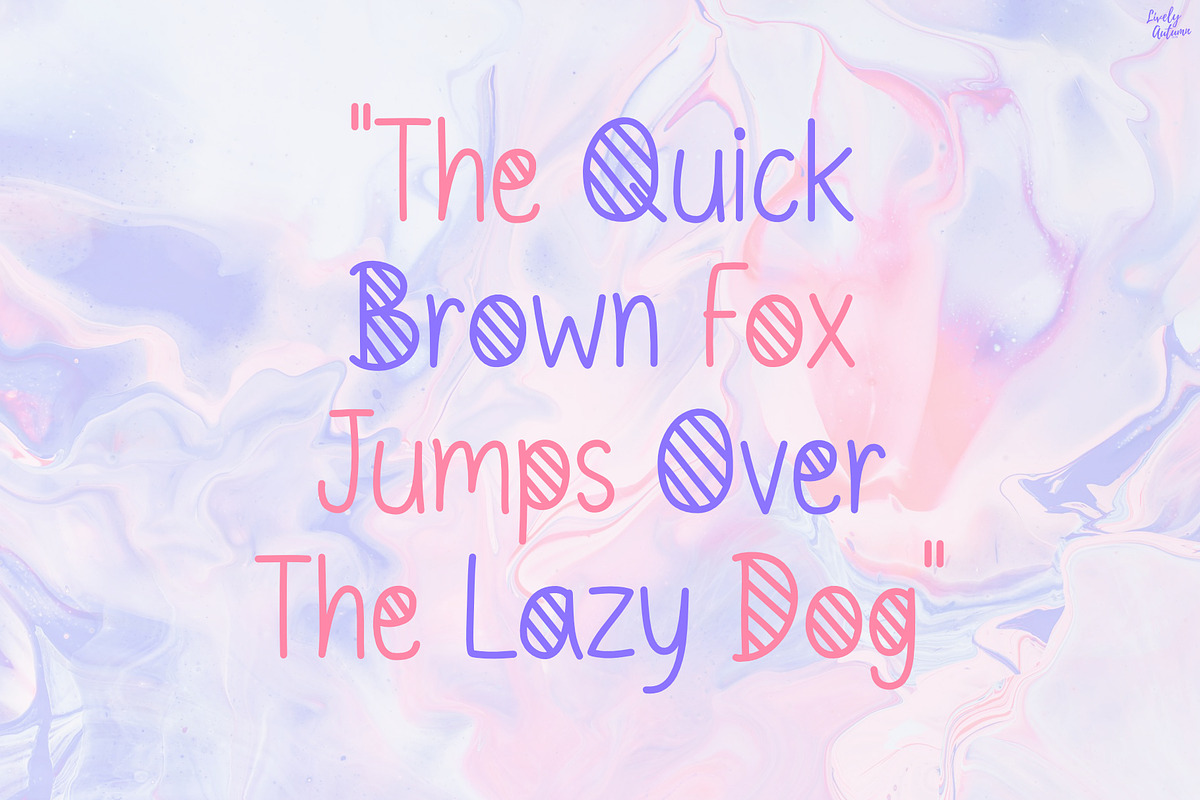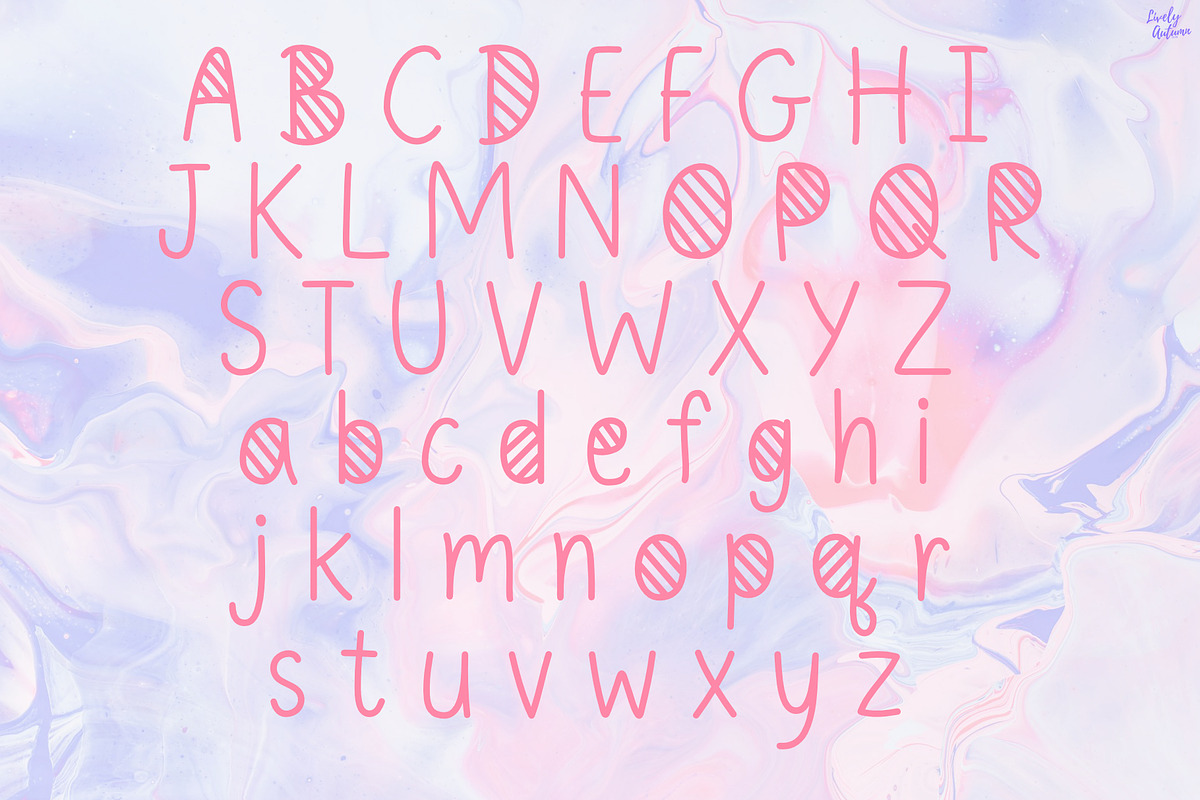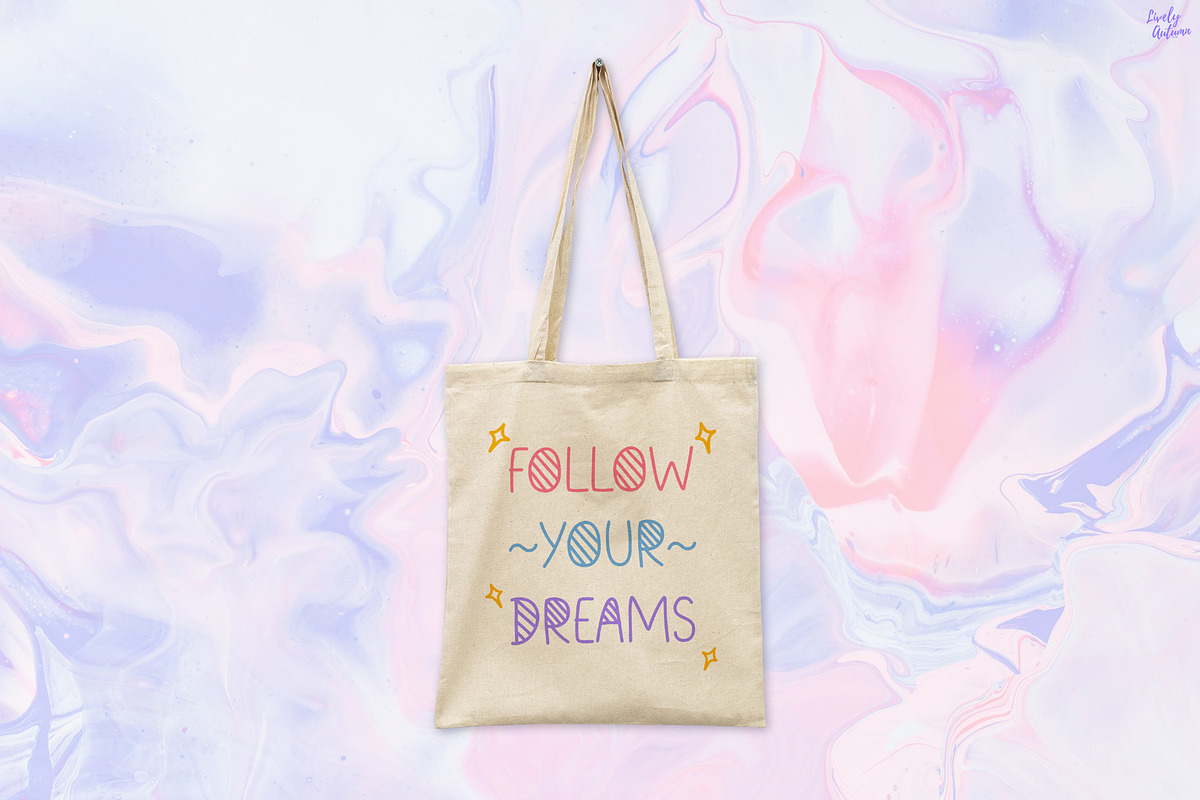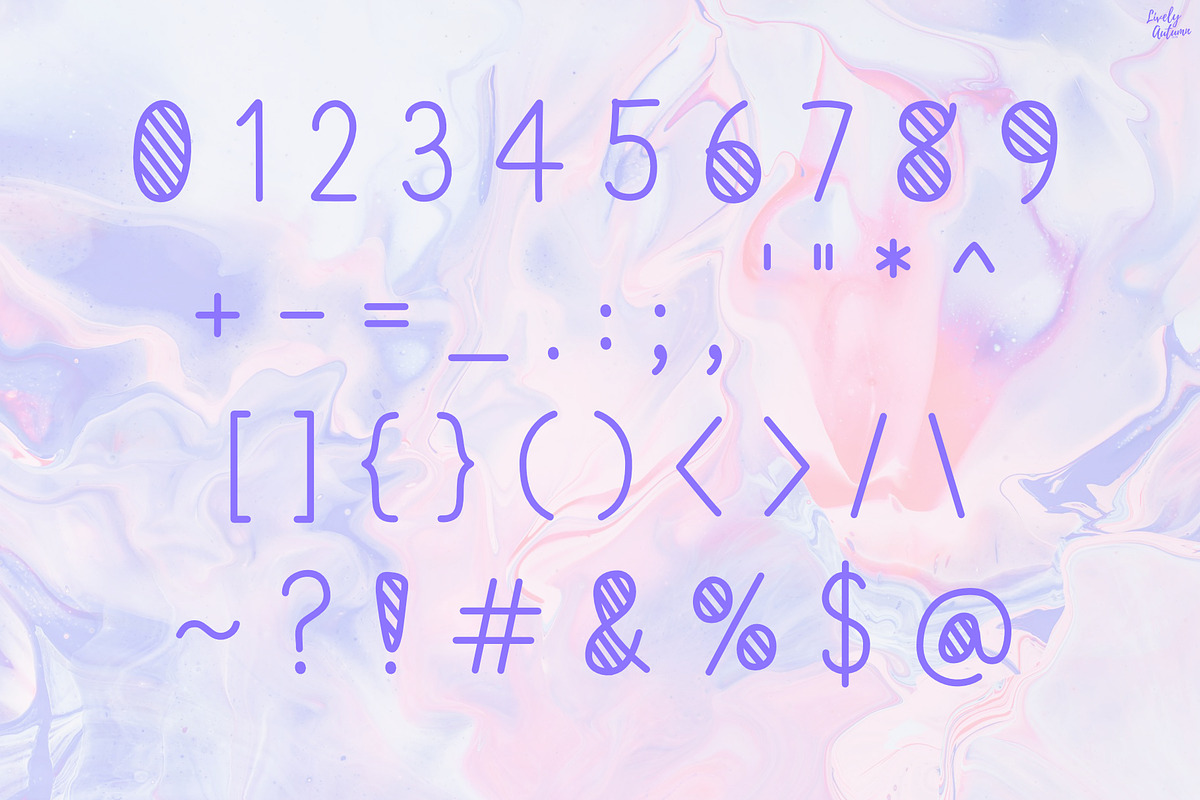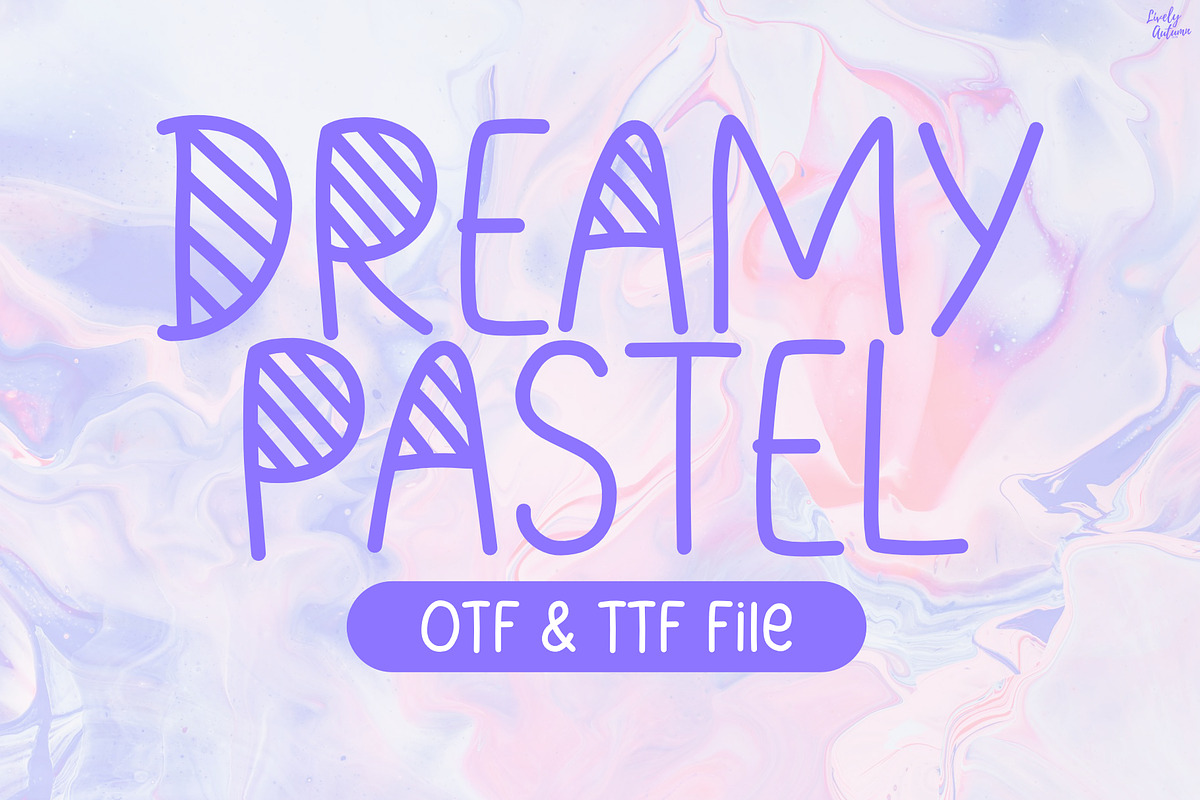
Dreamy Pastel | Handwritten Font
Dreamy Pastel font is a cute doodle handwritten font. Perfect for your personal projects and various projects. From invitations to posters, social media graphics, journals, stickers and much more.
- Font includes: uppercase, lowercase, numbers, and punctuation